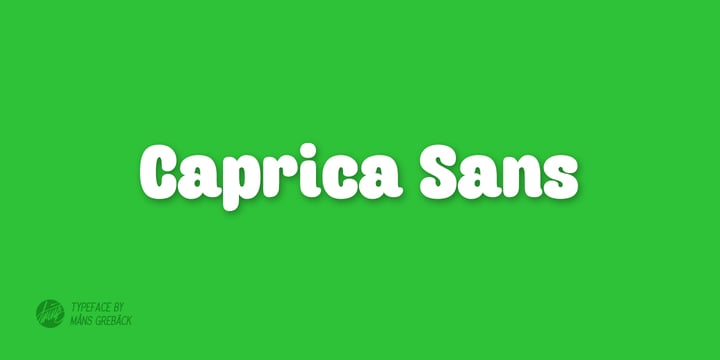
Caprica Sans
About Caprica Sans Font Family
Round, fun and creative sans-serif.
Designers: Måns Grebäck
Publisher: Mans Greback
Foundry: Mans Greback
Design Owner: Mans Greback